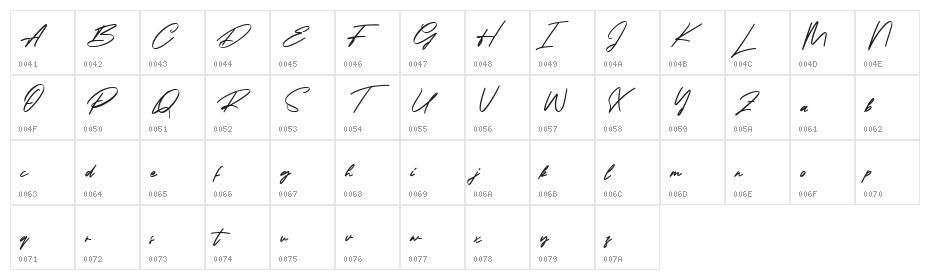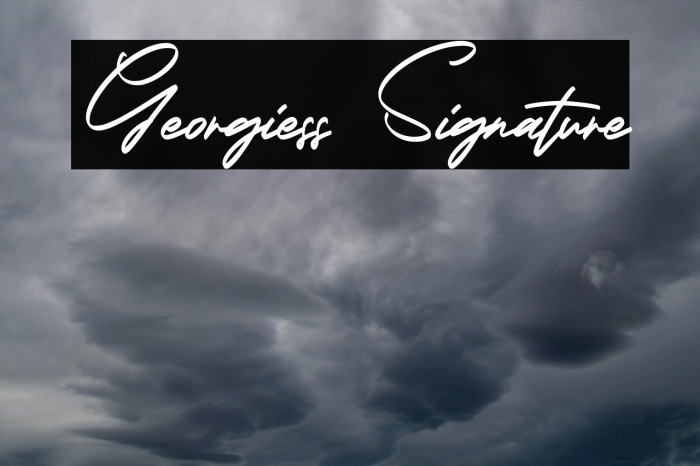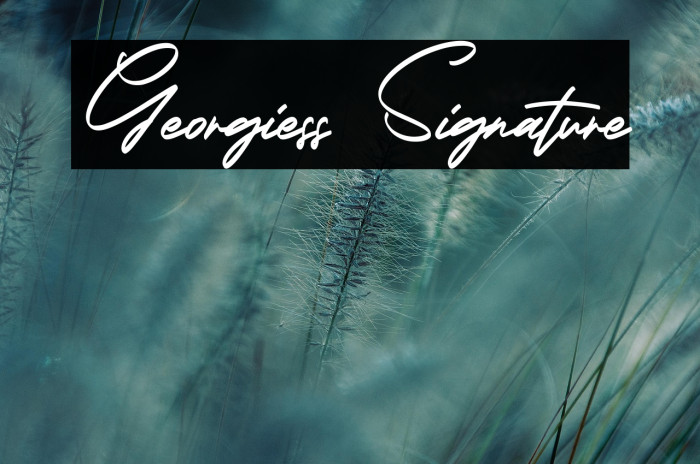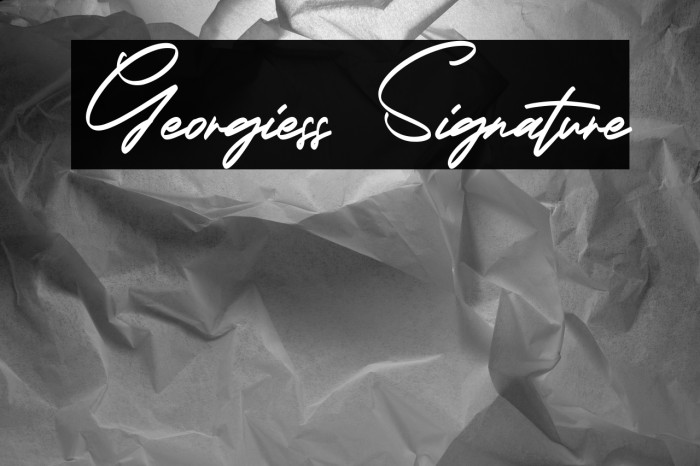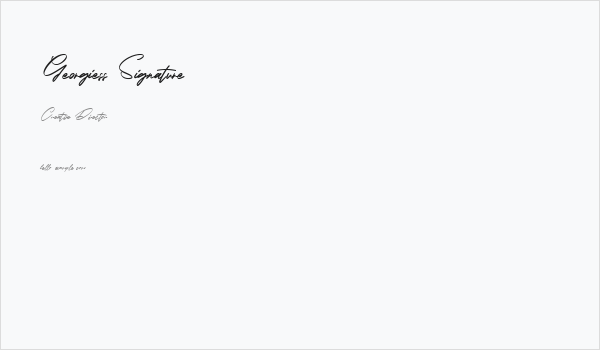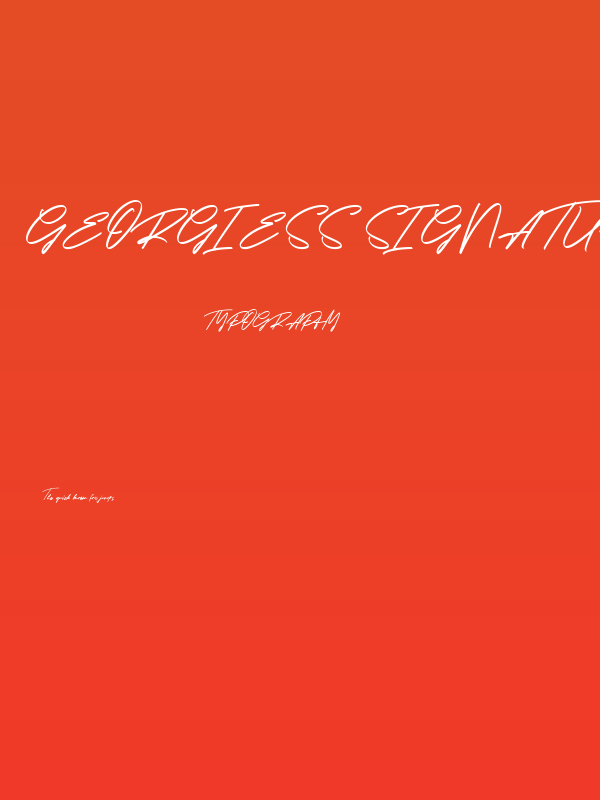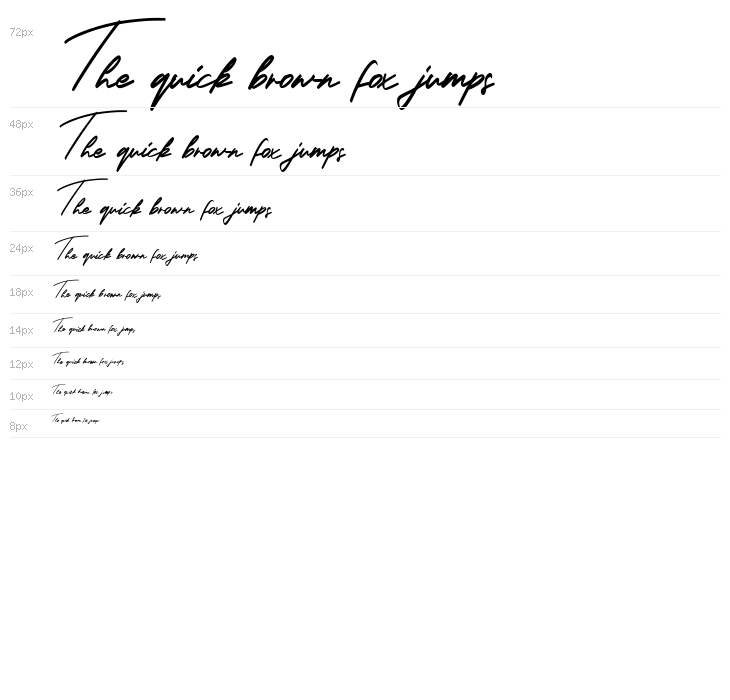
Georgiess Signature Font
Georgiess Signature Description
This font exudes a sophisticated and elegant style, characterized by its fluid, cursive script that mimics the natural flow of handwriting. The letters are interconnected with smooth, sweeping strokes, giving it a dynamic and lively appearance. The uppercase letters are bold and prominent, while the lowercase letters maintain a consistent flow, enhancing readability. The font's design is both modern and timeless, making it suitable for a variety of applications. It features a medium contrast in stroke thickness, adding to its legibility and aesthetic appeal. The character spacing is relatively tight, which contributes to its cohesive look.